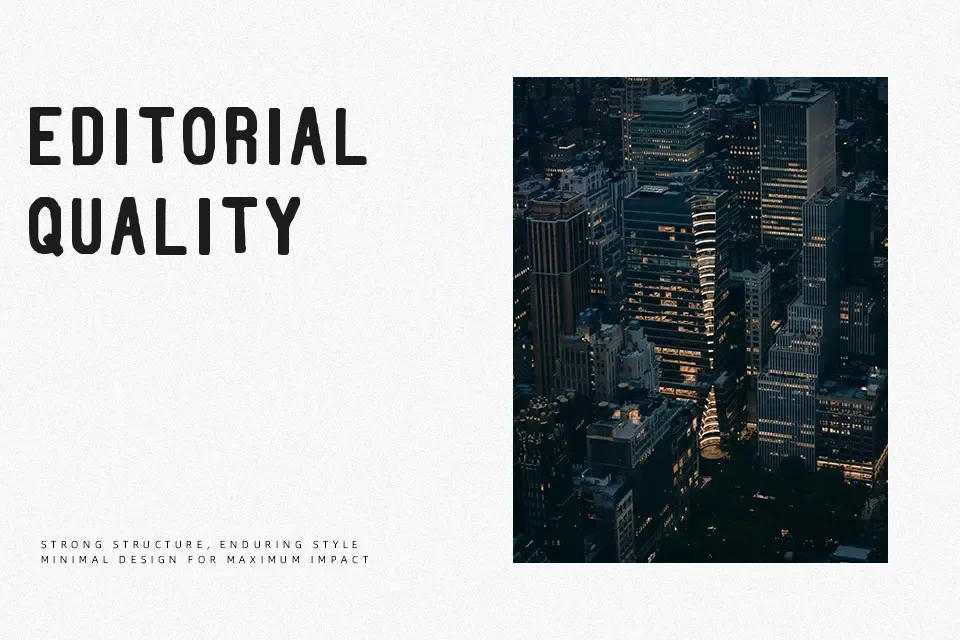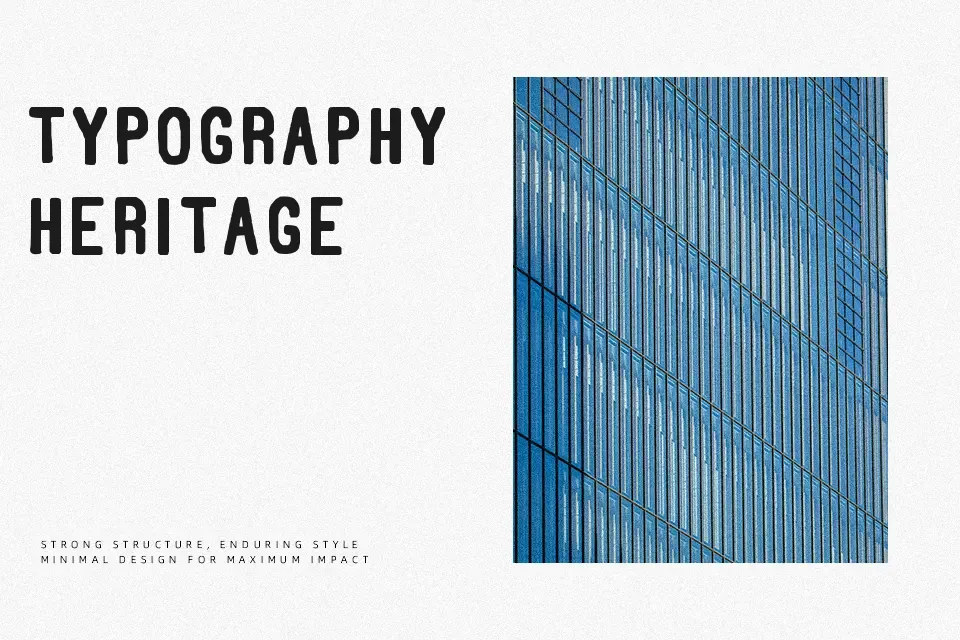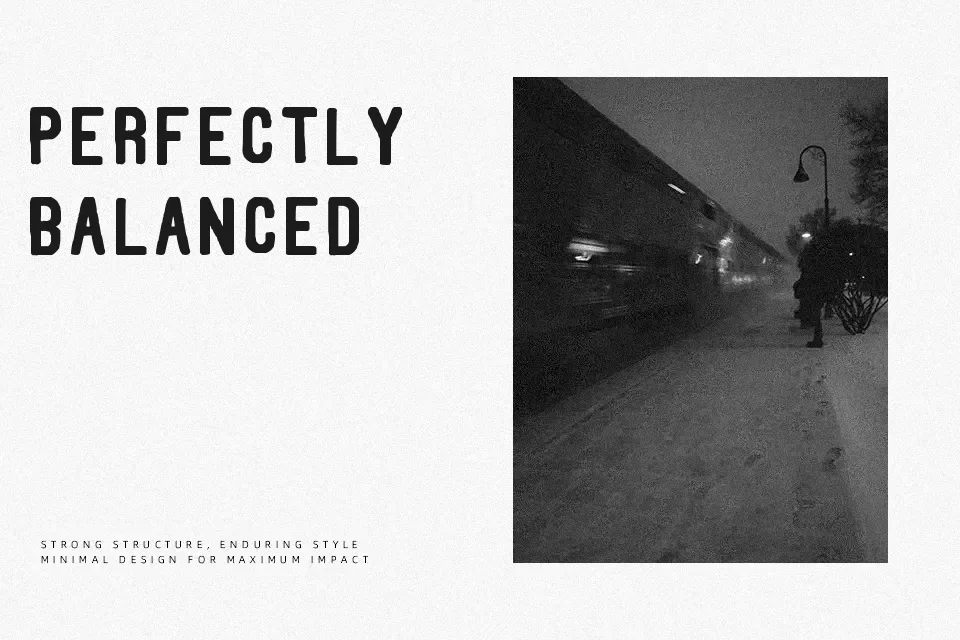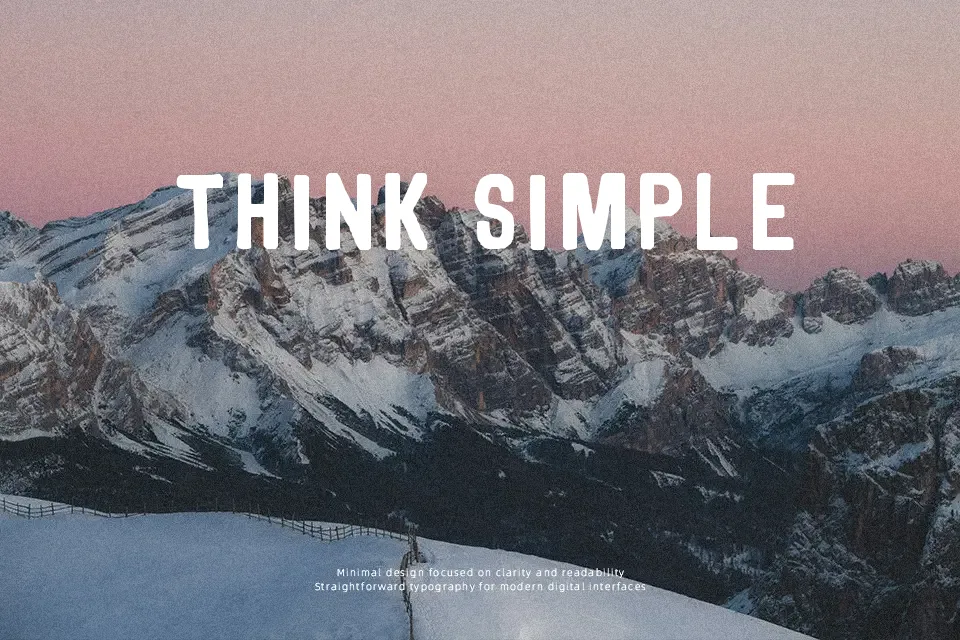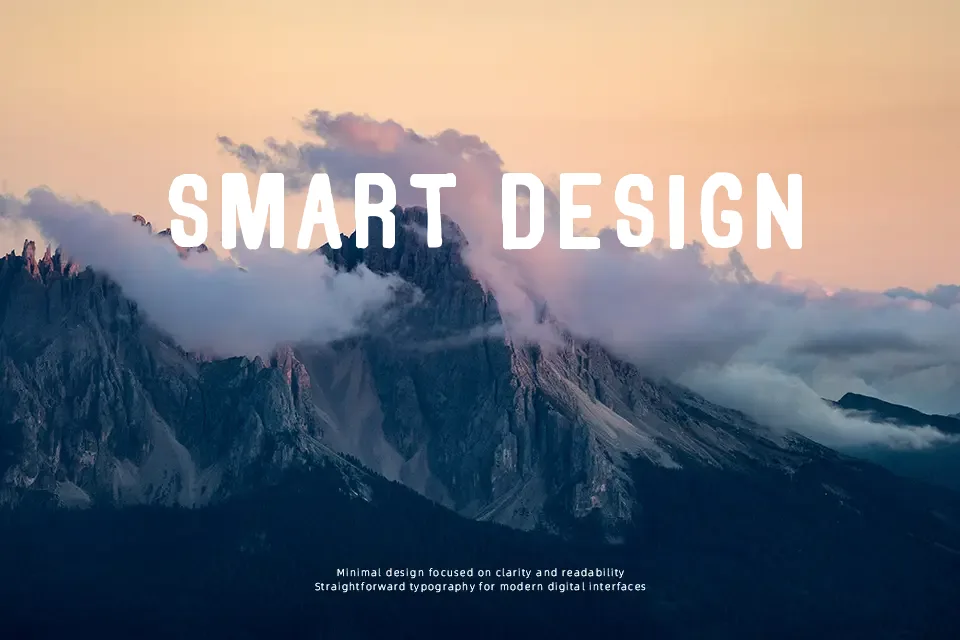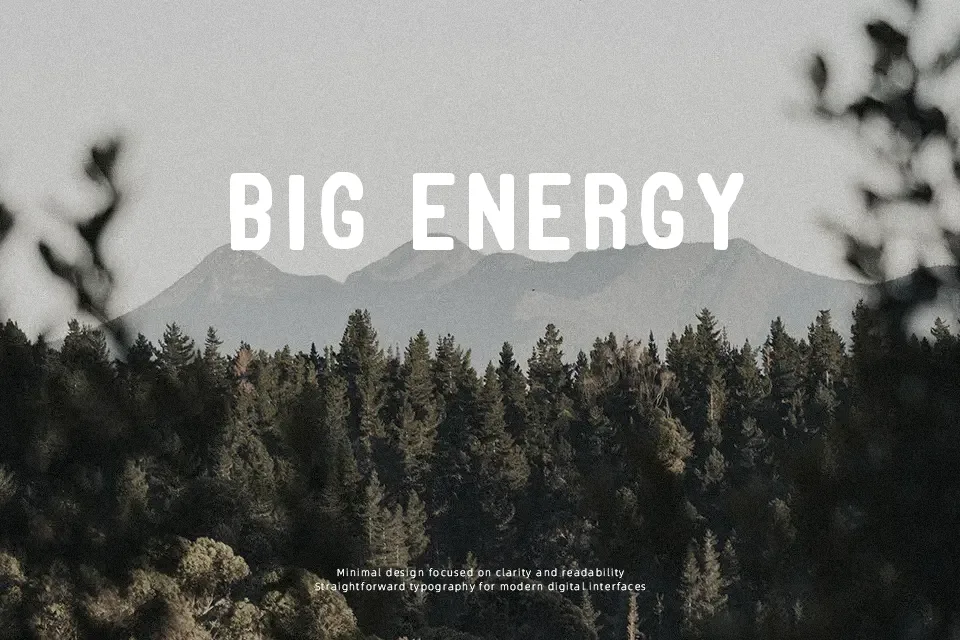
Thorne Font
Thorne Font showcases an imposing display structure defined by robust character weights, blunt terminal cuts, and deeply corroded contours that emulate aged mechanical type. The letterforms exhibit uniform proportions paired with moderately compact spacing, which helps preserve graphic cohesion across large titles. In terms of legibility, the typeface functions effectively when rendered as prominent headlines on festival banners, horror media titles, or rustic product labels. However, the heavy distress and closed counters quickly degrade recognition at smaller scales, rendering the design unsuitable for multi-line body copy or intricate interface layouts. The rugged distressing generates immediate tactile atmosphere in oversized formats, though careful kerning remains essential to prevent dense clusters from merging visually.
Best For: music album packaging, festival poster headlines, vintage apparel graphics, horror film titles
Not Ideal For: continuous body text, mobile interface labels, corporate documents, small data tables
Perfect for film, headline, and music, with a bold and decorative style.